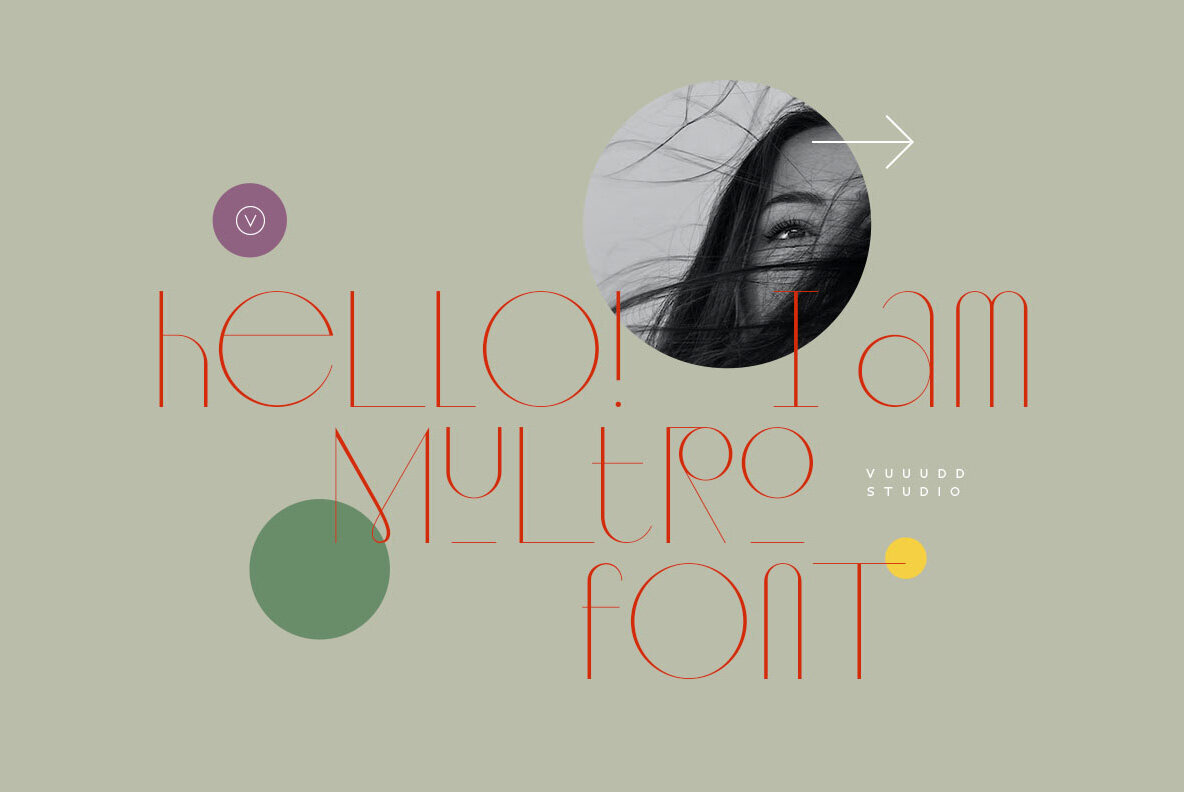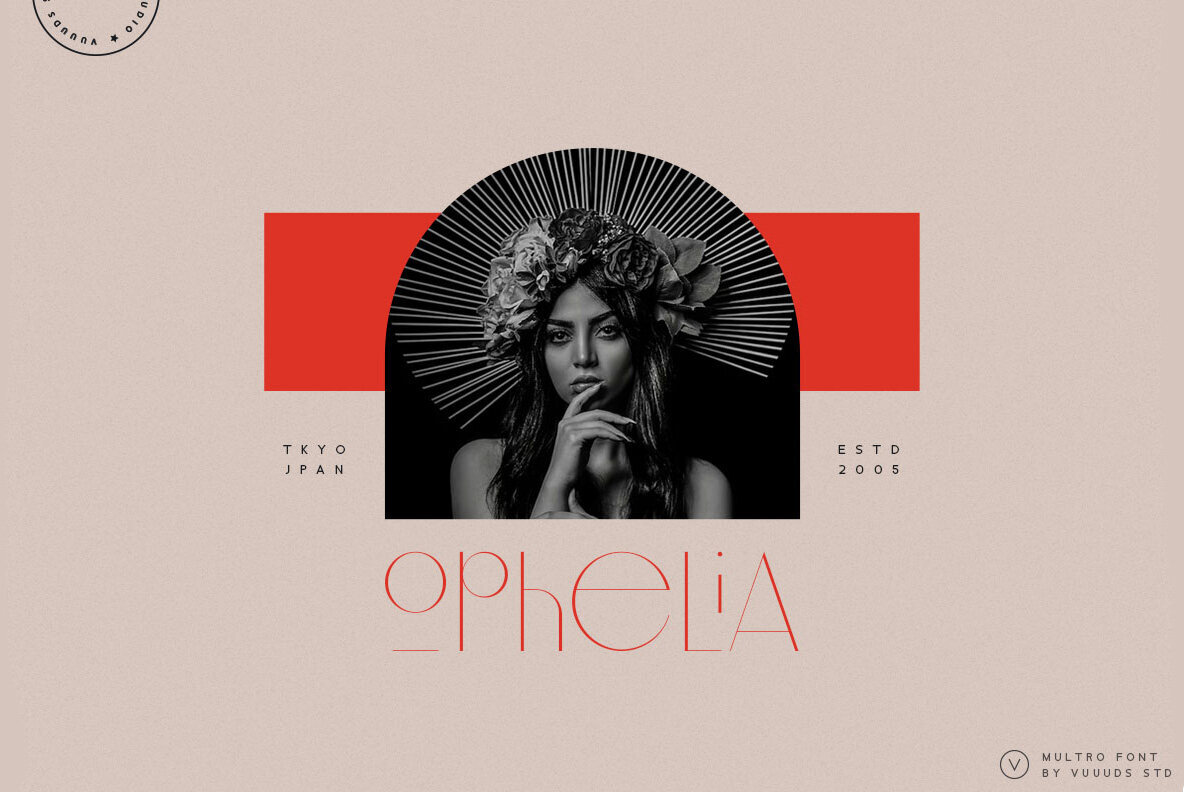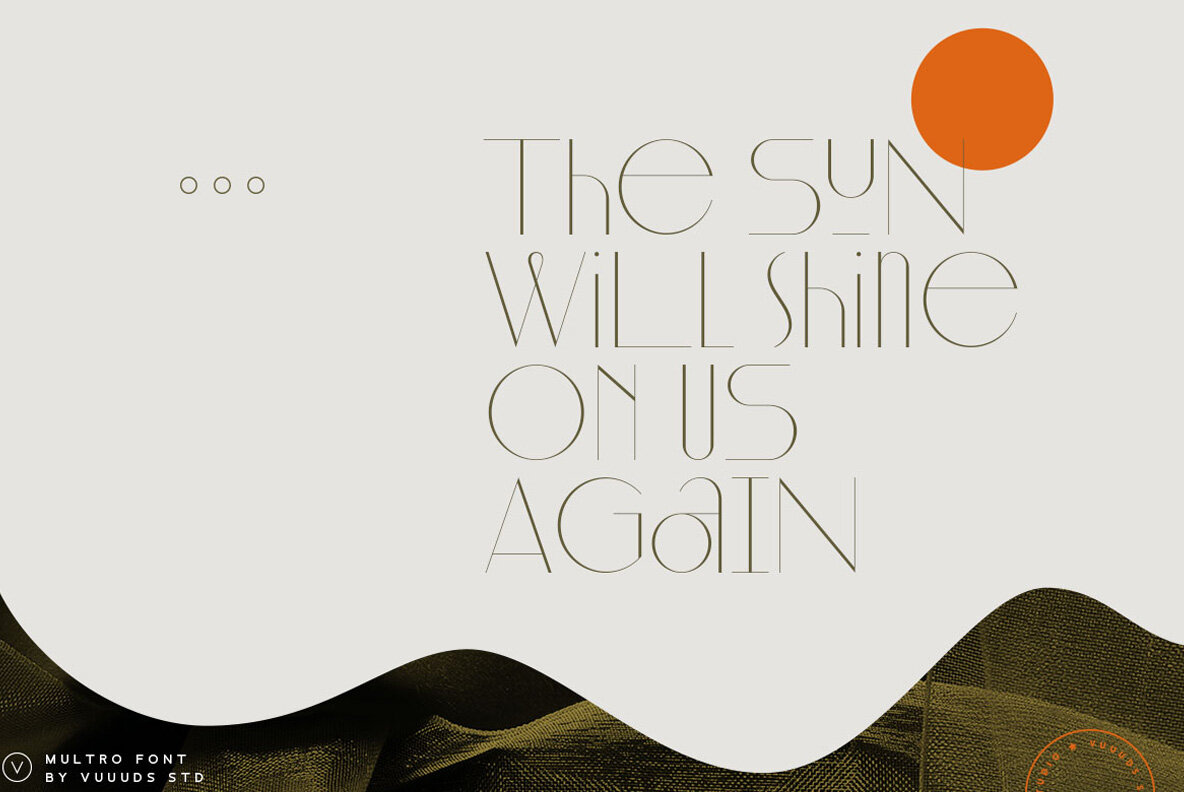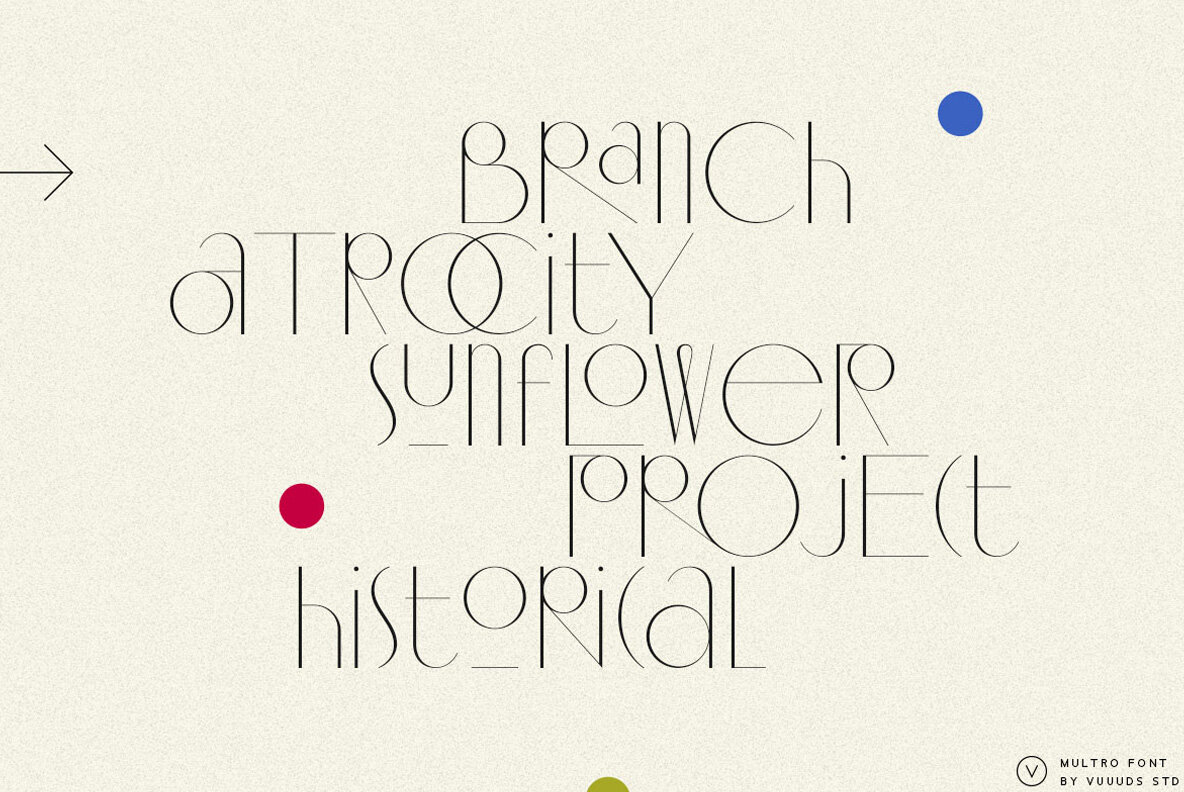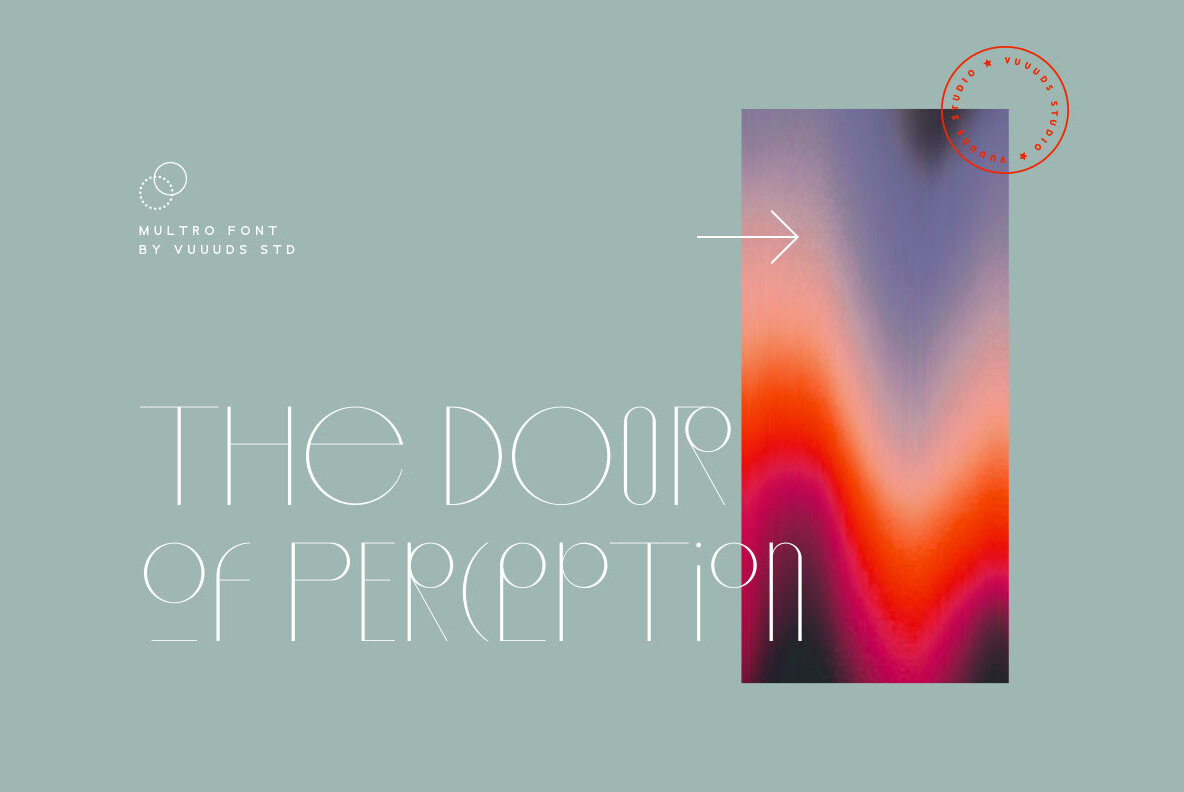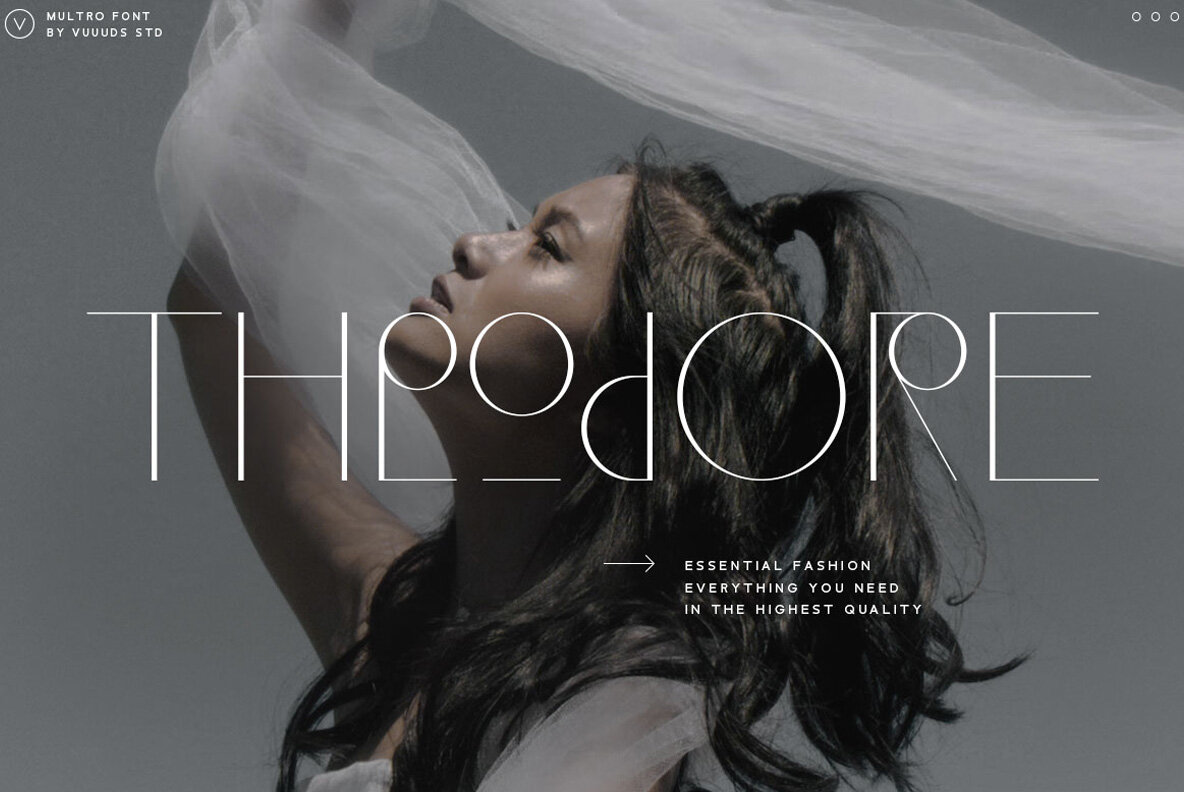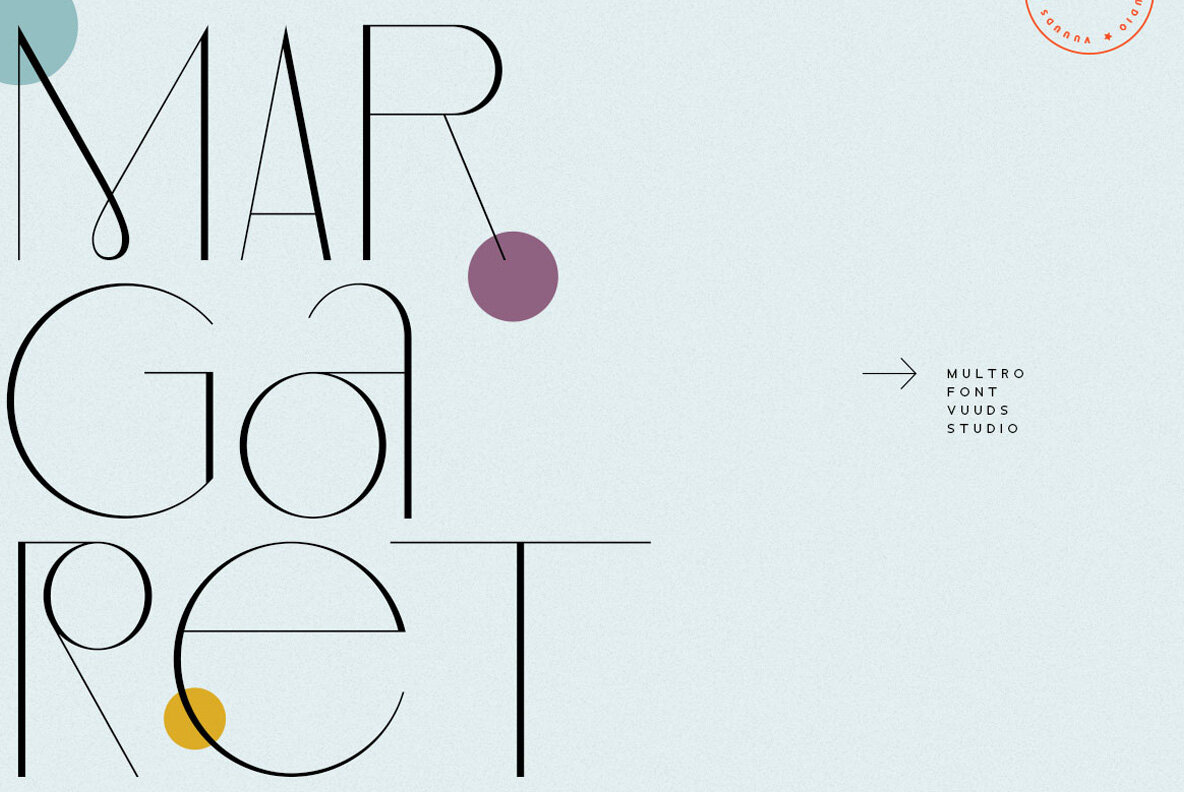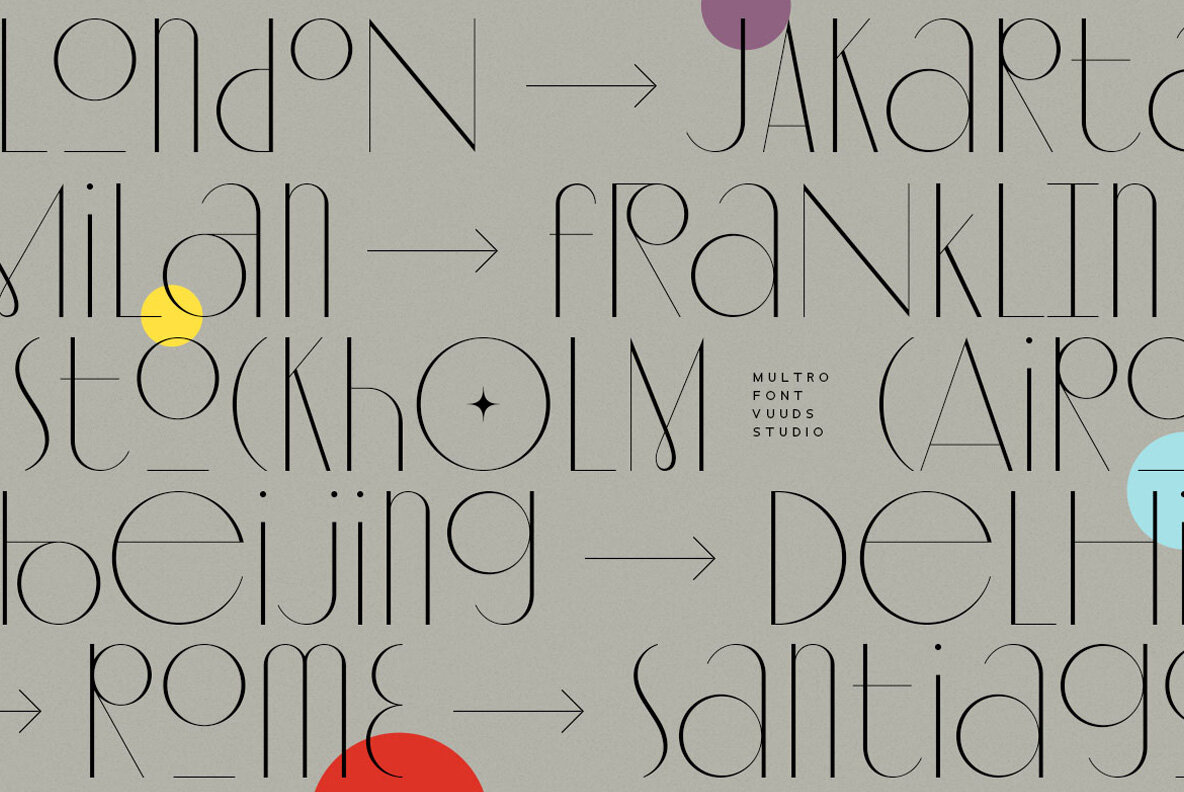
Multro
Multro is a modern sans serif font where each letter is uniquely crafted to create a distinctive and contemporary appearance. With an array of beautiful alternate glyphs, this font offers versatile design possibilities for any project. Experience the unique craftsmanship of Multro for your next creative endeavor.Multro: Modern Sans Serif with Unique Craftsmanship